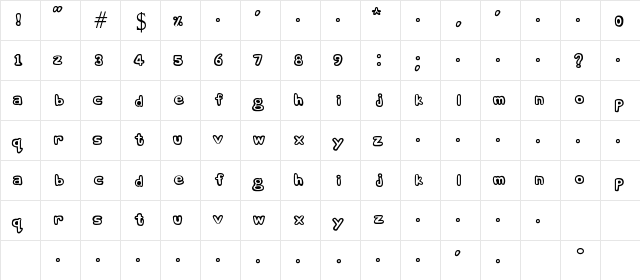
comic andy Regular
Design Context for comic andy Typeface
comic andy trades formality for fun, with bouncy, characterful letterforms that bring warmth and energy to any project.
Font Pairing: Pairs well with a rounded or humanist sans for body copy, maintaining the friendly tone without relying on comic andy to carry extended reading.
Pro Tip: Use comic andy at larger display sizes where its expressive character can land. Pair with a clean, simple sans for body copy to maintain readability.